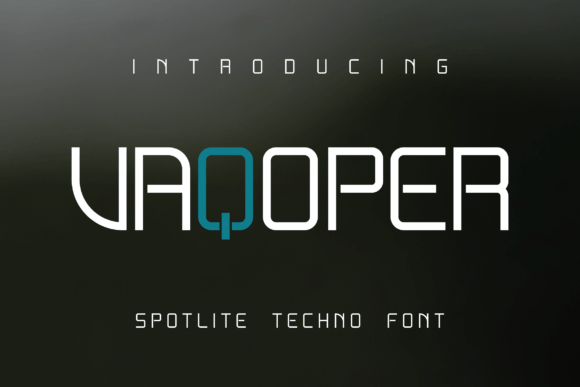
Journey back to the captivating era of the 2000s with the Vaqoper Font, a striking display font that embodies the essence of technological evolution. This slender and ethereal typeface, crafted by the visionary ponuppo, exudes a unique charm that transports you to a realm of digital artistry.
Immerse yourself in the world of gaming and let Vaqoper Font ignite your creativity. Its sleek lines and sharp angles perfectly capture the dynamic energy and fast-paced nature of the gaming universe. Design eye-catching banners that captivate your audience and leave a lasting impression.
But Vaqoper Font's versatility extends far beyond the realm of gaming. Its minimalist aesthetic and timeless appeal make it an ideal choice for a wide range of design projects. Create stunning logos that exude sophistication and modernity. Craft elegant invitations and greeting cards that convey a sense of occasion. Unleash your imagination and explore the endless possibilities that await with Vaqoper Font.
Harness the power of nostalgia and evoke memories of simpler times with Vaqoper Font. Its thin and light appearance harks back to the golden age of technology, reminding us of the beauty and simplicity that once defined our digital landscape. Let Vaqoper Font add a touch of retro charm to your designs and evoke a sense of longing for the past.
Step into the future with Vaqoper Font, a font that embodies the spirit of innovation and progress. Its clean and uncluttered design reflects the sleek aesthetics of modern technology, inspiring you to create designs that are both visually appealing and thought-provoking. Embrace the cutting edge and push the boundaries of creativity with Vaqoper Font.